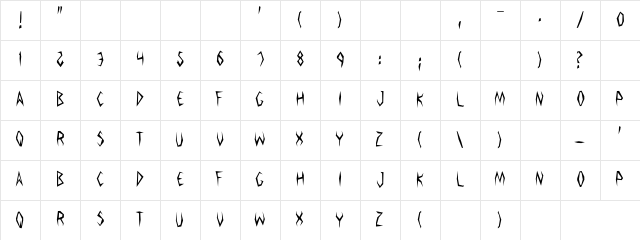
Argosy the Second Regular
Design Context for Argosy the Second Typeface
Argosy the Second is a composed and adaptable typeface that performs quietly and consistently across a wide range of design contexts. Its narrow stance lets it pack a punch even in space-constrained designs.